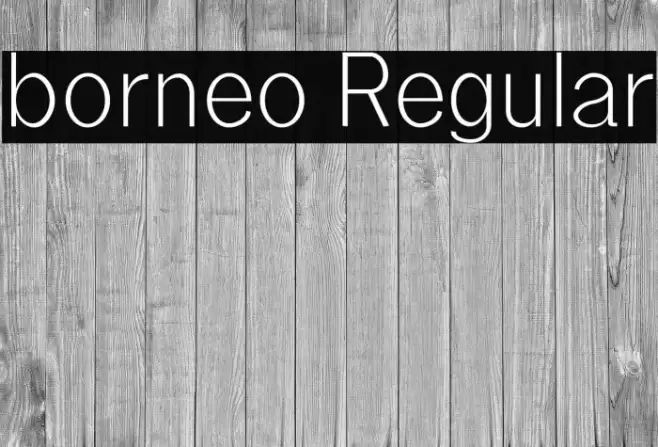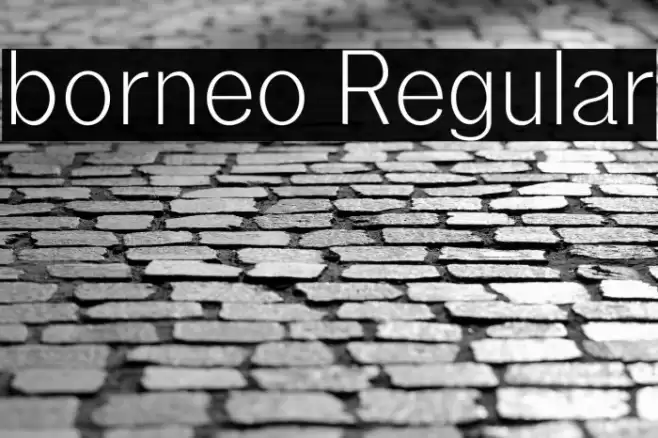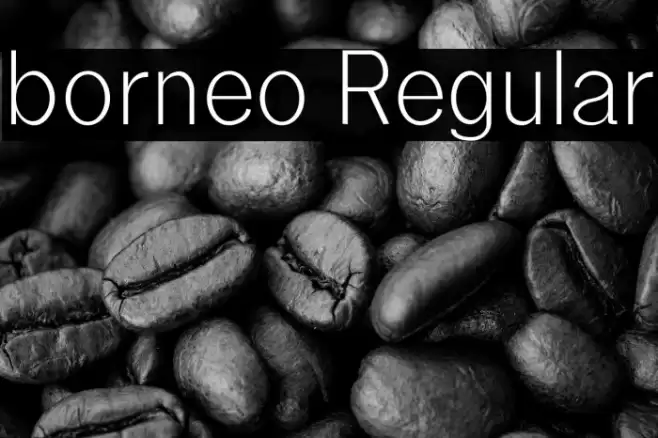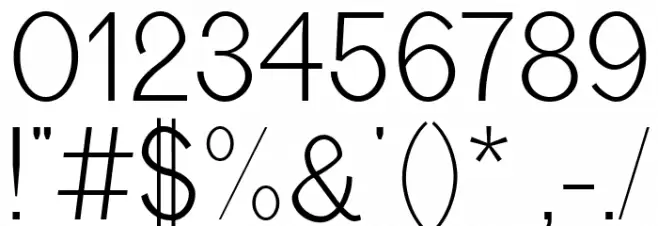
borneo Regular Font
borneo Regular Description
This font features a clean and modern sans-serif design with a uniform stroke width, giving it a sleek and contemporary appearance. The characters are well-proportioned, with a consistent height and width that enhances readability. The uppercase letters are bold and assertive, while the lowercase letters maintain a friendly and approachable look. The numerals are clear and distinct, making them easy to read. Special characters are included, providing versatility for various design needs. Overall, this font is ideal for projects that require a modern and professional aesthetic.
A clean, modern sans-serif font with uniform stroke width and excellent readability from Regular fonts.
- Proposed Projects: Ideal for corporate branding, web design, advertising, and editorial layouts.